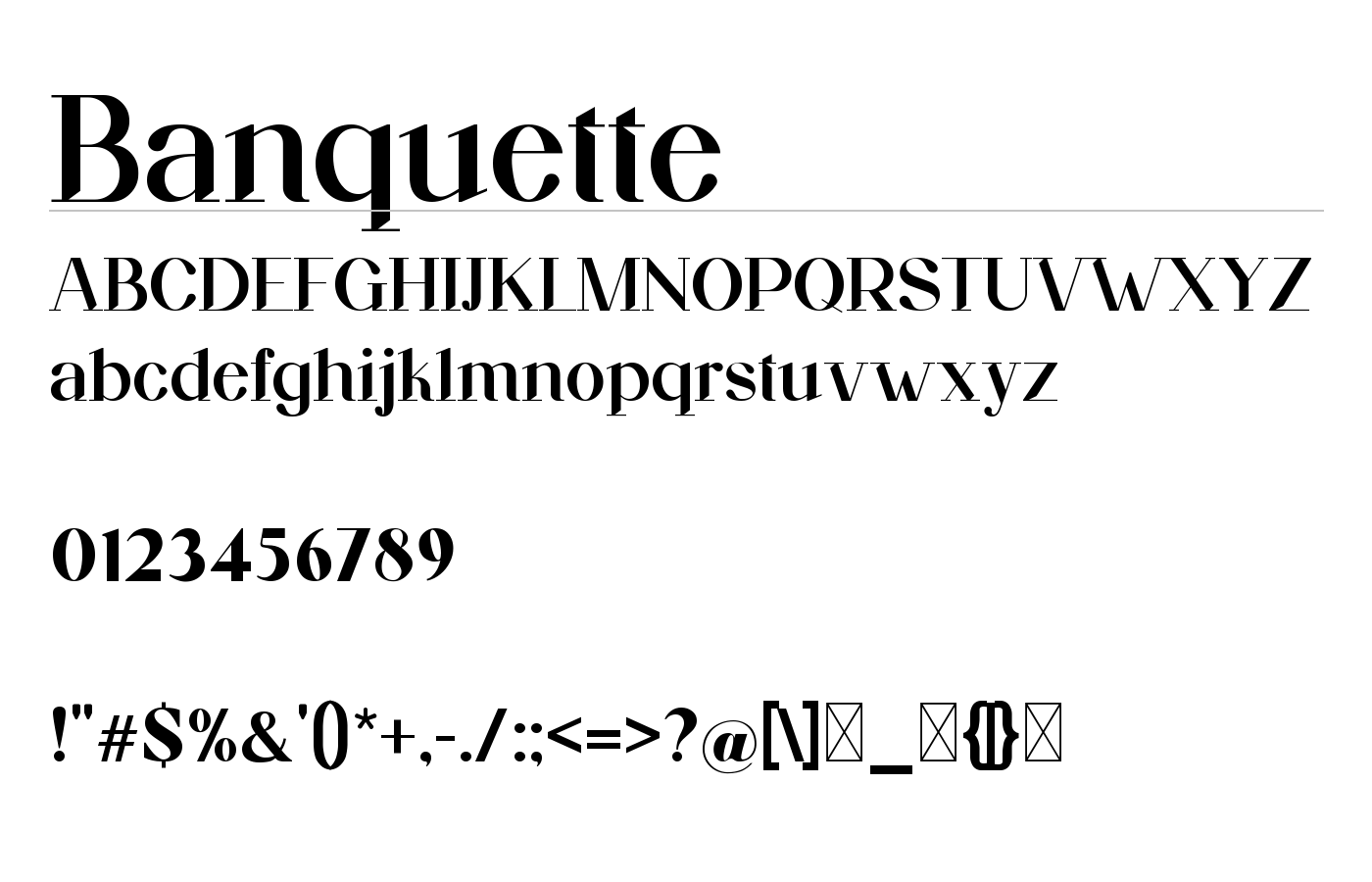
Banquette is a refined serif typeface that blends classic elegance with modern sharpness. Its high contrast between thick and thin strokes, distinctive bracketed serifs, and stylish letterforms give it a sophisticated yet contemporary feel, making it ideal for luxury branding, editorial headlines, and upscale packaging. This font's graceful design adds an air of prestige while maintaining readability, perfect for projects seeking a polished and timeless aesthetic.
Banquette Font